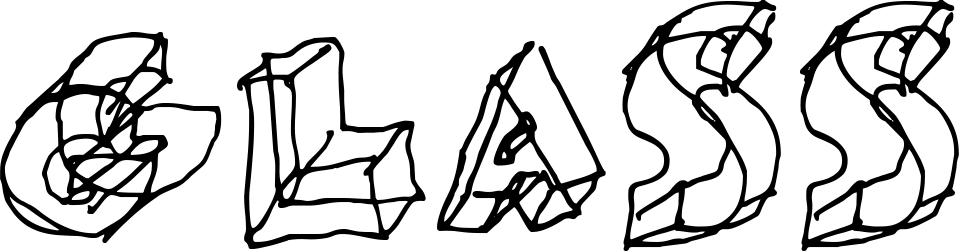
Glass Font
Are you after a distorted font to create a unique project? If so, we’ve got you covered. This one follows the shape of 3D and glassy characters and gives you a casual vibe. Glass can be a perfect host for various content needs such as; posters, store signs, branding, and so forth. Bear in mind, that this sketch font lacks lowercase letters.